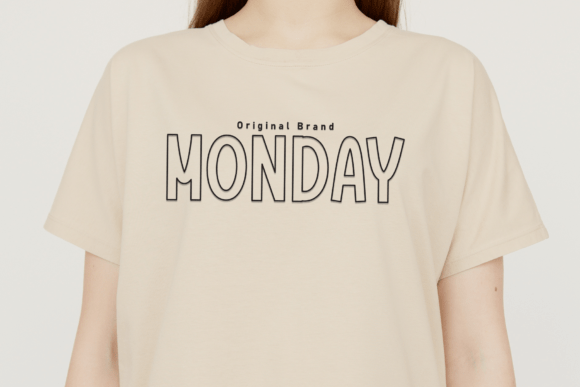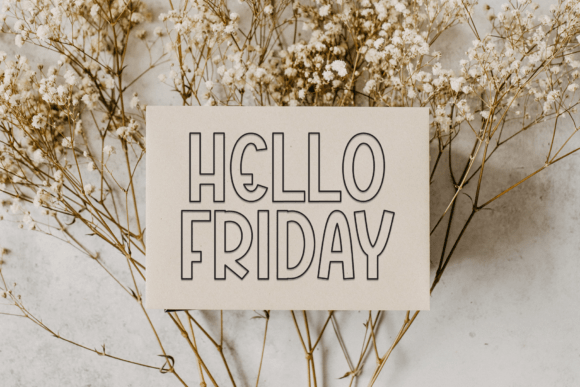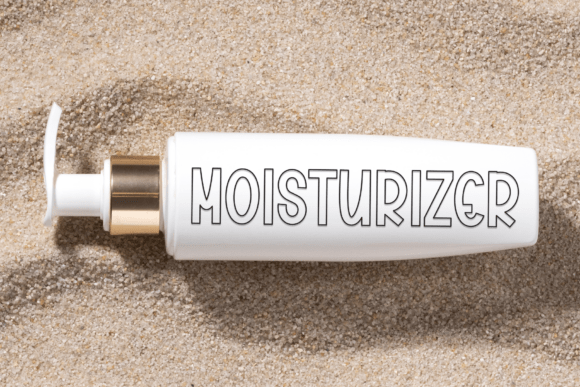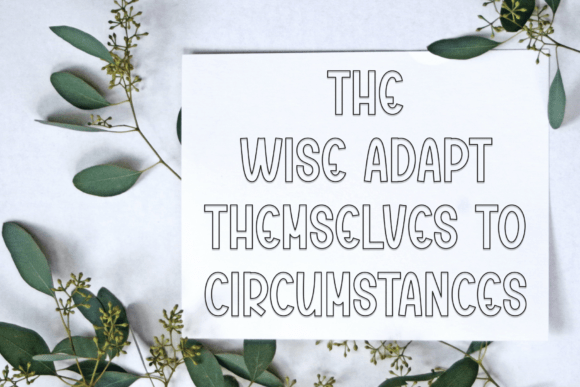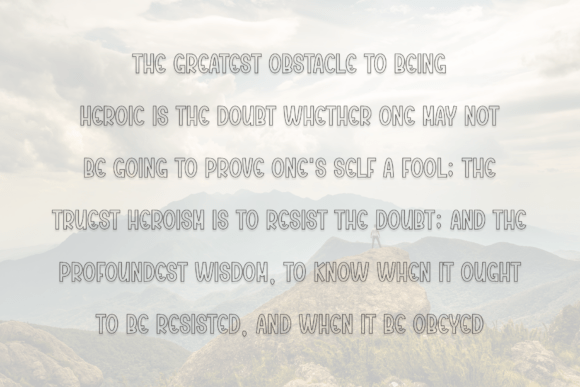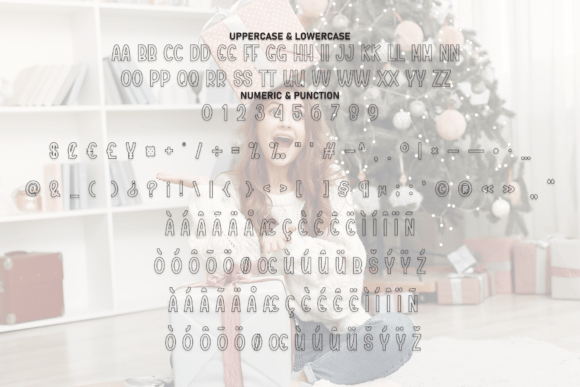
Introduction to Funny New Year Font
As the clock strikes midnight and fireworks illuminate the sky, we’re already looking forward to the creative possibilities the new year brings. For designers, the start of a new year is a time to refresh our palettes and experiment with fresh design resources. And what better way to kick-start your creative journey than with a font that embodies the essence of fun and playfulness? Enter the Funny New Year Font, a delightful handwritten display font that’s poised to add a dash of whimsy to your designs.
This exceptional font is not just a pretty face; it’s a valuable design resource that’s perfect for creating high-quality, one-of-a-kind designs. With its transparent background and effortless style, it’s easy to see why designers are flocking to this free download. Whether you’re working on a playful wedding invite, a heartfelt greeting note, or any other creative project, the Funny New Year Font is sure to bring a smile to your face and a touch of authenticity to your designs.
Key Features of Funny New Year Font
- High-quality design resource with a transparent background, perfect for creative projects and backgrounds.
- Unique and playful design elements, ideal for New Year’s themed projects, such as party invitations, social media graphics, and more.
- Comes with a range of customizable options, including color and size, to ensure a personalized look for your project.
- Designed to be highly legible and easy to read, even at small sizes, making it perfect for a variety of creative projects.
Honest Review: Funny New Year Font
I recently had the chance to try out the Funny New Year Font for a creative project and I’m excited to share my thoughts. The first thing that caught my eye was the free download option – a major perk for designers on a budget. The high-quality design resource is perfect for creating eye-catching graphics, invitations, and social media posts for the upcoming year.
- ✨The font’s playful, modern style makes it ideal for creative projects
- ✨Transparency option allows for seamless integration with various backgrounds
- ⚠️Limited font sizes and styles may restrict its use in complex designs
Overall, I’m impressed with the Funny New Year Font‘s potential for adding a touch of fun to any design project. While it may have some limitations, its free download option and high-quality design make it a valuable resource for designers.
The Funny New Year Font is a unique and creative design resource ideal for various high-quality projects. It offers a transparent background, making it versatile for use in multiple applications.
The Funny New Year Font is ideal for creative projects such as:
- New Year’s Eve invitations
- Party decorations